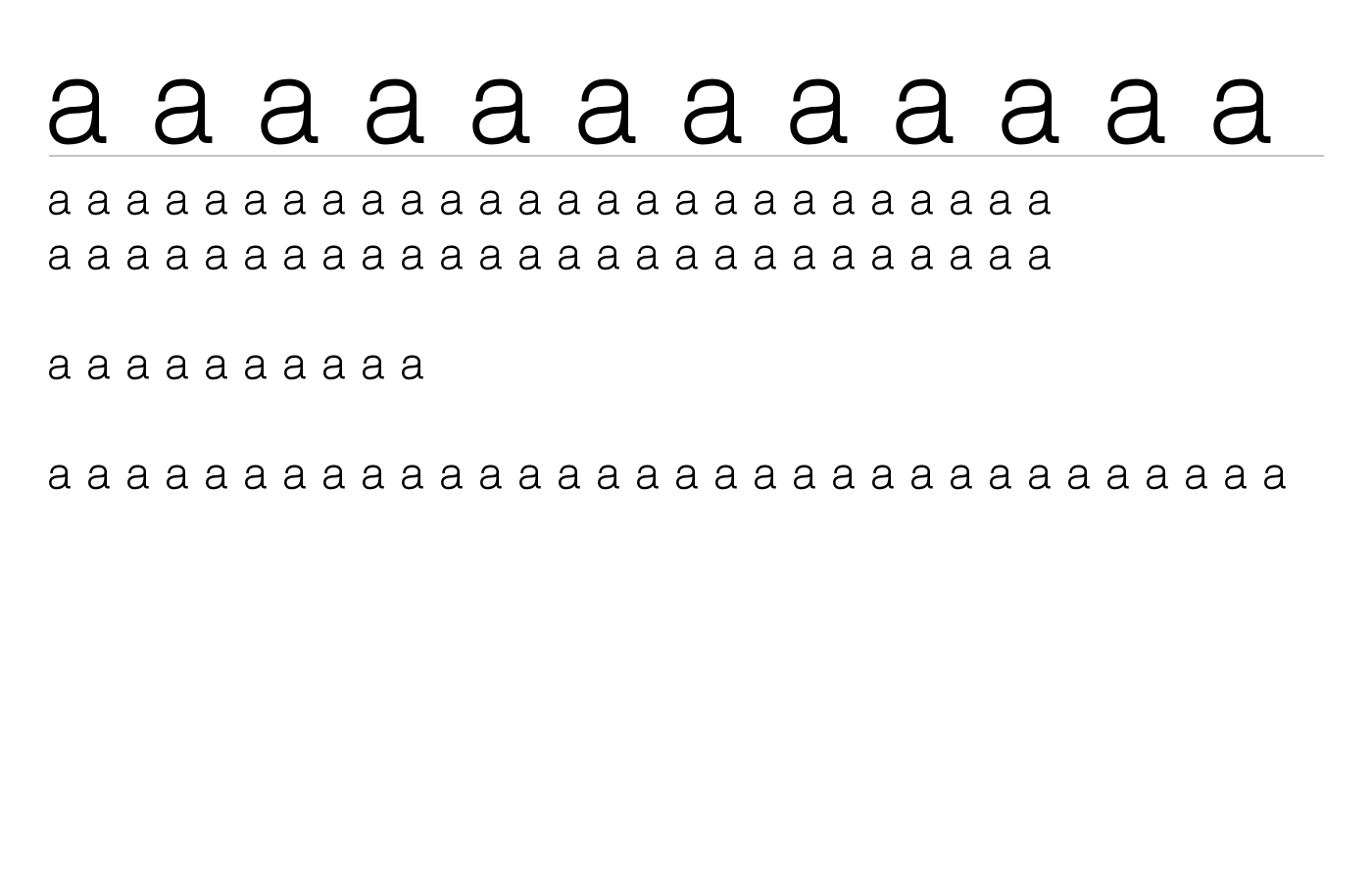
Alghorie Std is a clean and modern sans serif font characterized by its lightweight and narrow proportions. Its consistent stroke weight and simple, geometric letterforms create a minimalist and elegant appearance, making it highly readable in both digital and print formats. This font is ideal for sleek branding, contemporary editorial layouts, and UI design where clarity and a refined, understated style are desired.